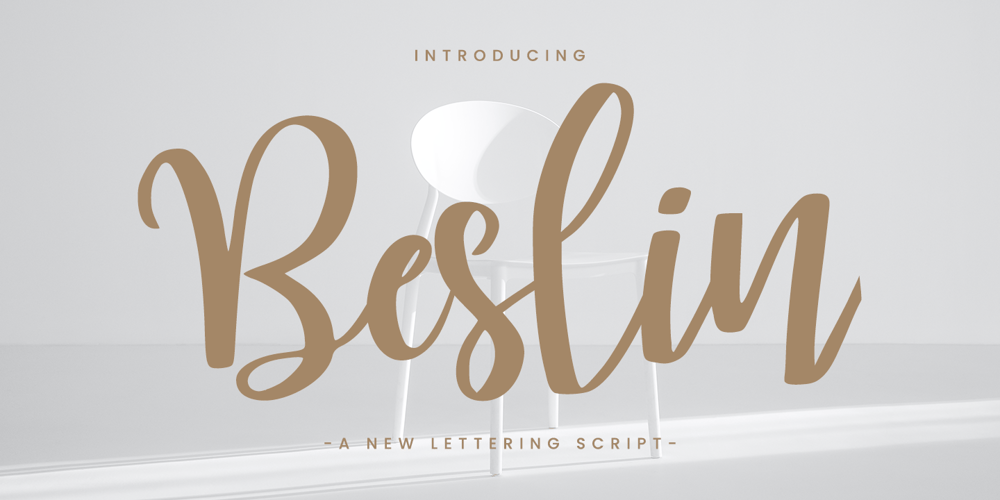
Beslin Font Family was designed by Yusup Saputra and published by DYSA Studio. Beslin contains 1 styles and family package options. Beslin is handwritten signature font. This another collection of script is perfect for your next branding project, excellent for your business. Beslin have a smooth edges, so this font gives an authentic handcrafted feel style.Beslin is perfect choice for people looking for clean, modern, minimalist, elegant, beauty design styles.Suitable for almost any graphic designs such as logo, branding materials, business cards, gift cards, t-shirt, cover, thumbnail, print, poster, photography, quotes .etc